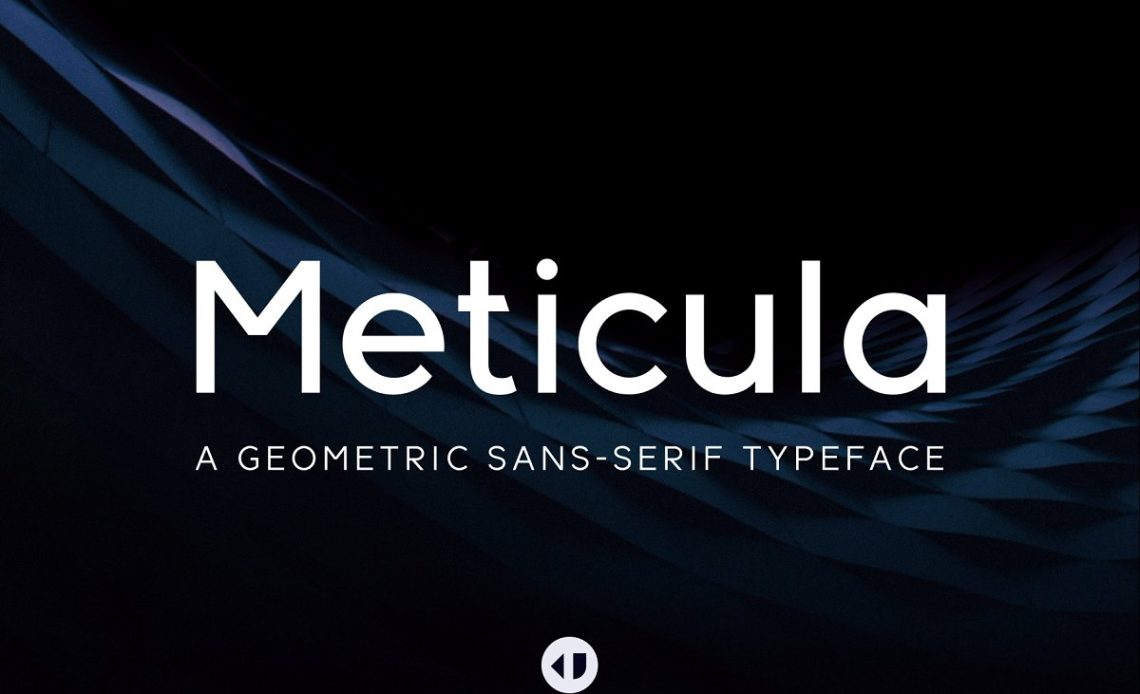
Introducing Meticula - the Sans-serif Typeface that will revolutionize your creative journey! Created by the brilliant mind of Kushal Jain, this font family boasts 18 meticulously crafted fonts, each infused with geometric shapes and inspired by the elegance of modern sans-serif typefaces.
With its minimalistic design and diverse range of font styles, Meticula caters to all your typography and graphic design needs. Whether you're a professional designer or a passionate hobbyist, this font collection is your gateway to limitless creativity.
Unleash your imagination with Meticula's captivating range of fonts. From bold and striking to subtle and elegant, each font exudes its own unique personality, allowing you to express your ideas in the most impactful way possible. Whether you're designing a logo, creating stunning visuals for your website, or crafting eye-catching social media posts, Meticula has got you covered.
But Meticula is more than just a collection of fonts; it's a journey of self-expression. Each character is meticulously crafted to evoke emotions and tell a story. Every curve, every line, and every stroke seamlessly come together to create a harmonious blend of beauty and functionality.
Experience the power of Meticula and captivate your audience with its seamless legibility and timeless appeal. Stand out from the crowd and leave a lasting impression on your viewers. With Meticula, your designs will transcend the ordinary and elevate your brand to new heights.